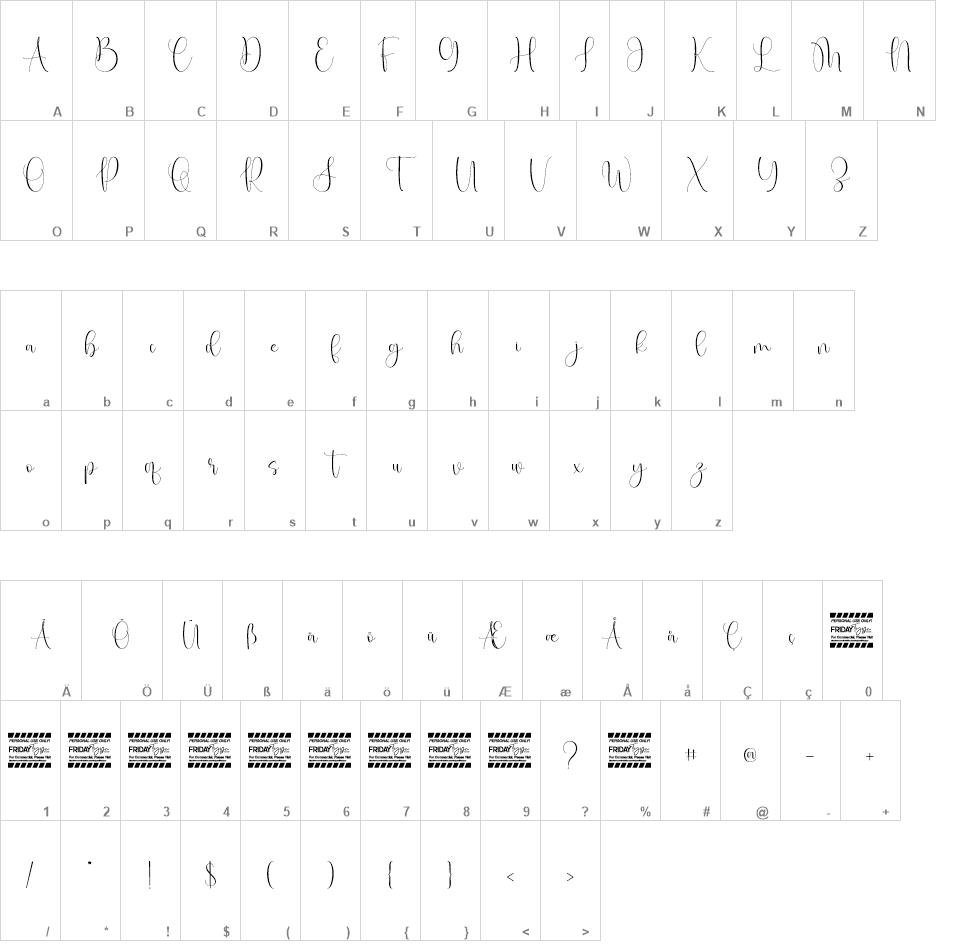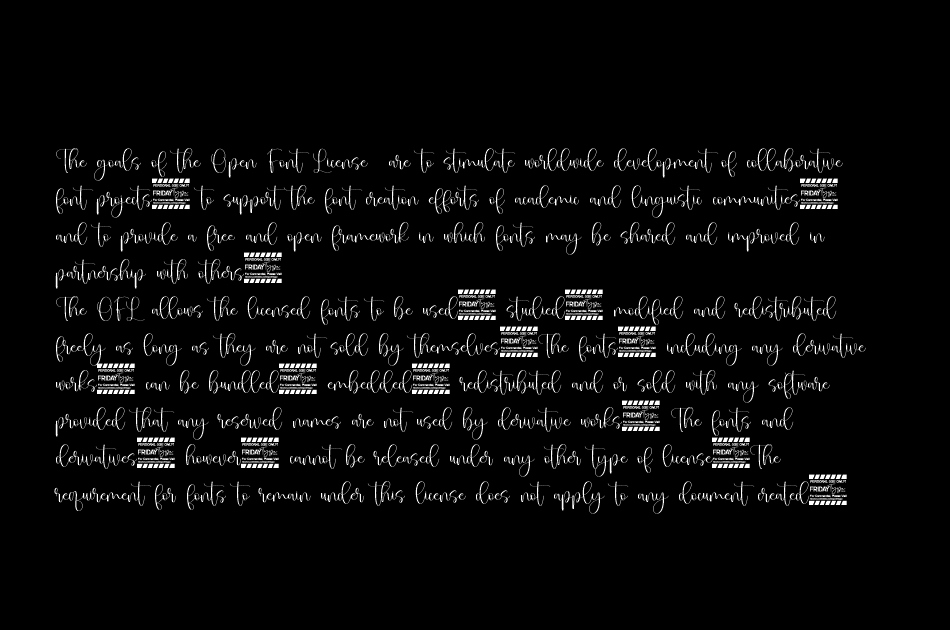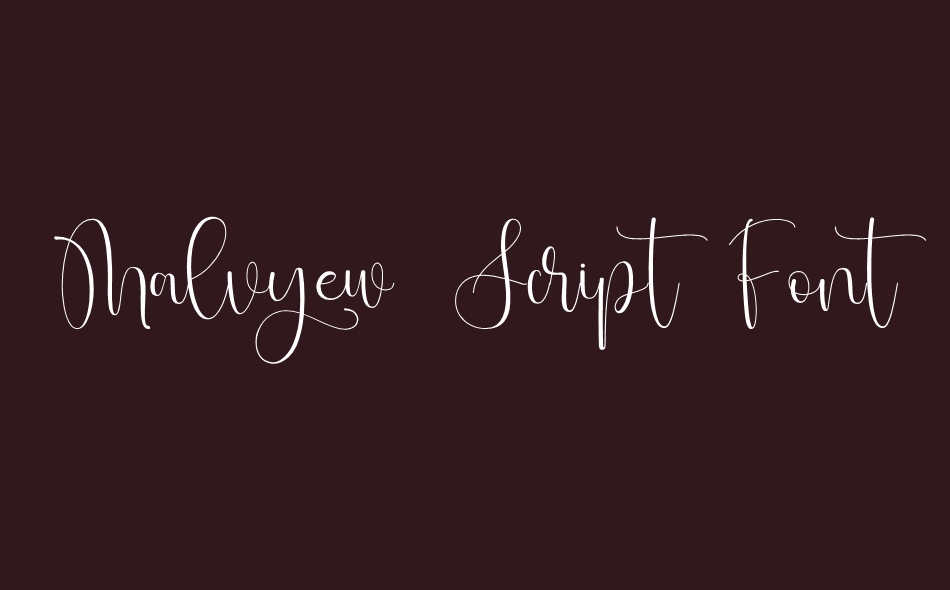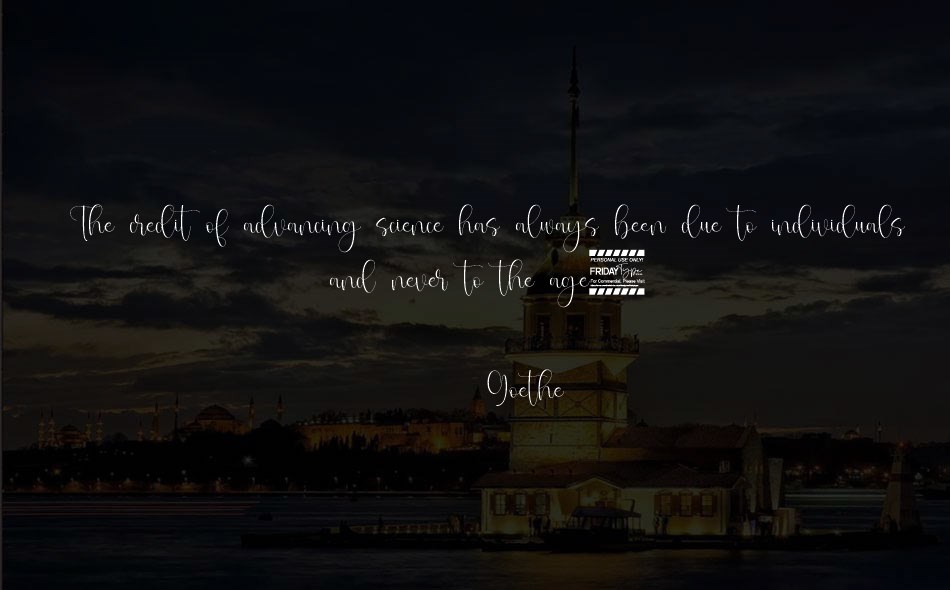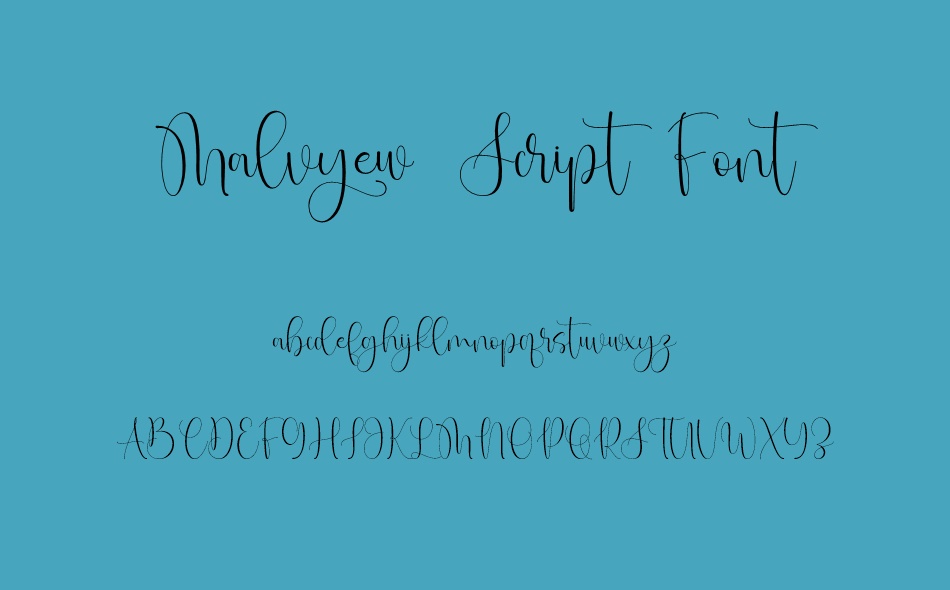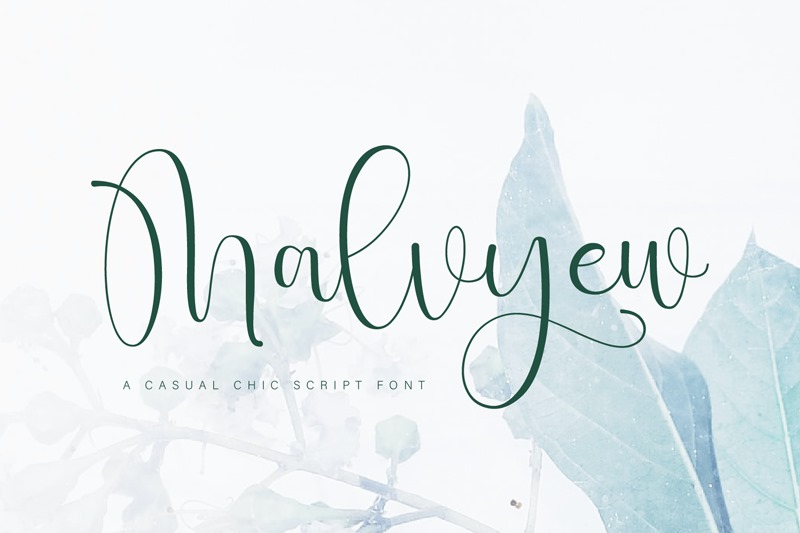
Malvyew Script font
Malvyew a new fresh modern script with a handmade calligraphy style, decorative characters and a dancing baseline! So beautiful on invitation like greeting cards, branding materials, business cards, quotes, posters, and more!!